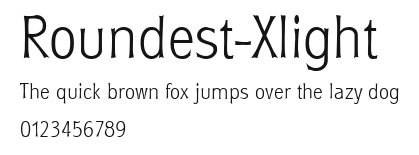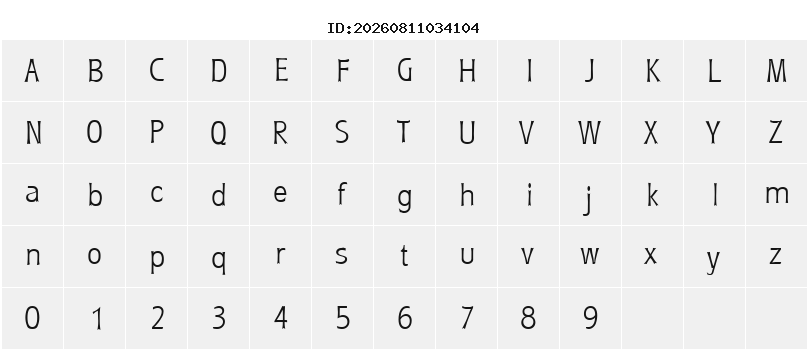
Roundest-Xlight Preview
• Font Name: Roundest-Xlight
• Full Font Name: Roundest-Xlight
• PostScript Name: Roundest-Xlight
About Roundest-Xlight.ttf
Roundest-Xlight.ttf is a modern, elegant sans-serif font designed for ultimate readability and visual harmony. Perfect for branding, headlines, web design, and print materials.